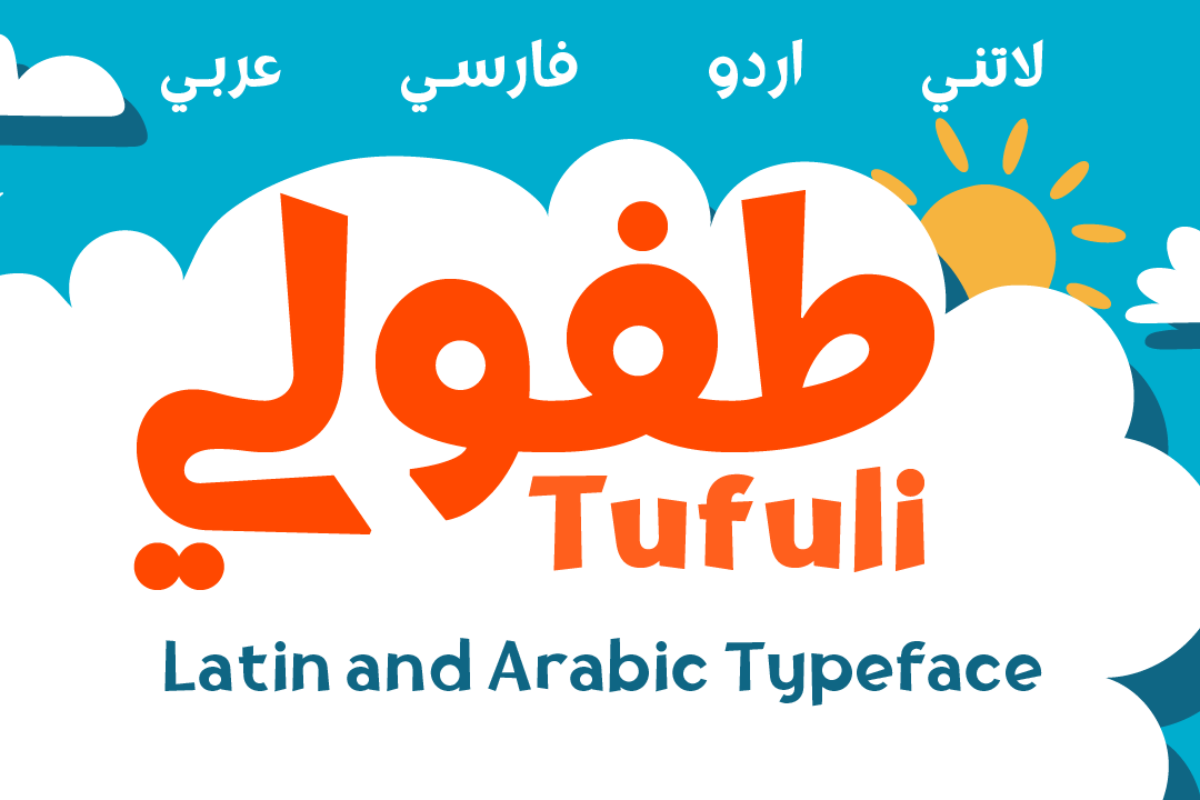
Tufuli Arabic Medium
Tufuli Arabic Font - A Fun & Playful Arabic Display Typeface for Branding & Apps Playful design knows no boundaries—and certainly no language barrier. Tufuli Arabic Fun & Playful Font extends the cheerful spirit of its Latin counterpart into the world of Arabic typography, creating a lively display typeface that feels equally at home in Arabic, Urdu, and Farsi contexts. The result is a font that radiates joy—light, expressive, and instantly engaging—while preserving the clarity essential to well